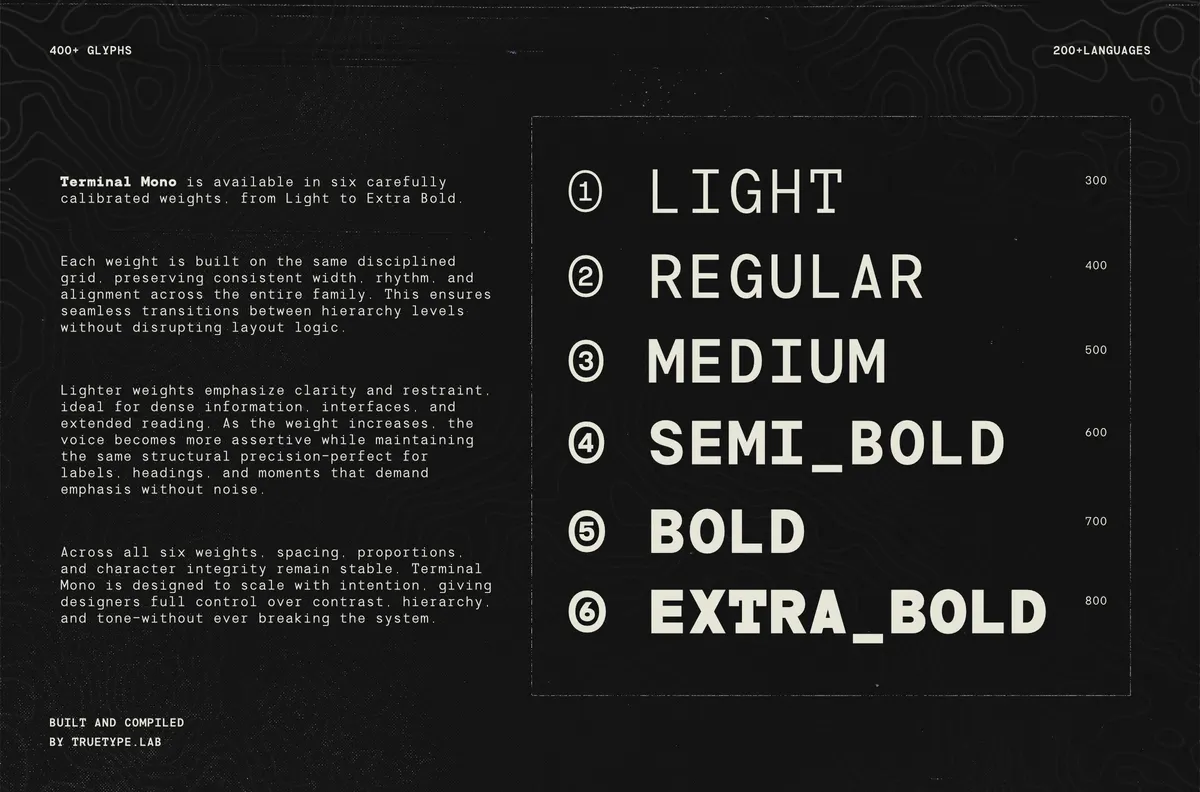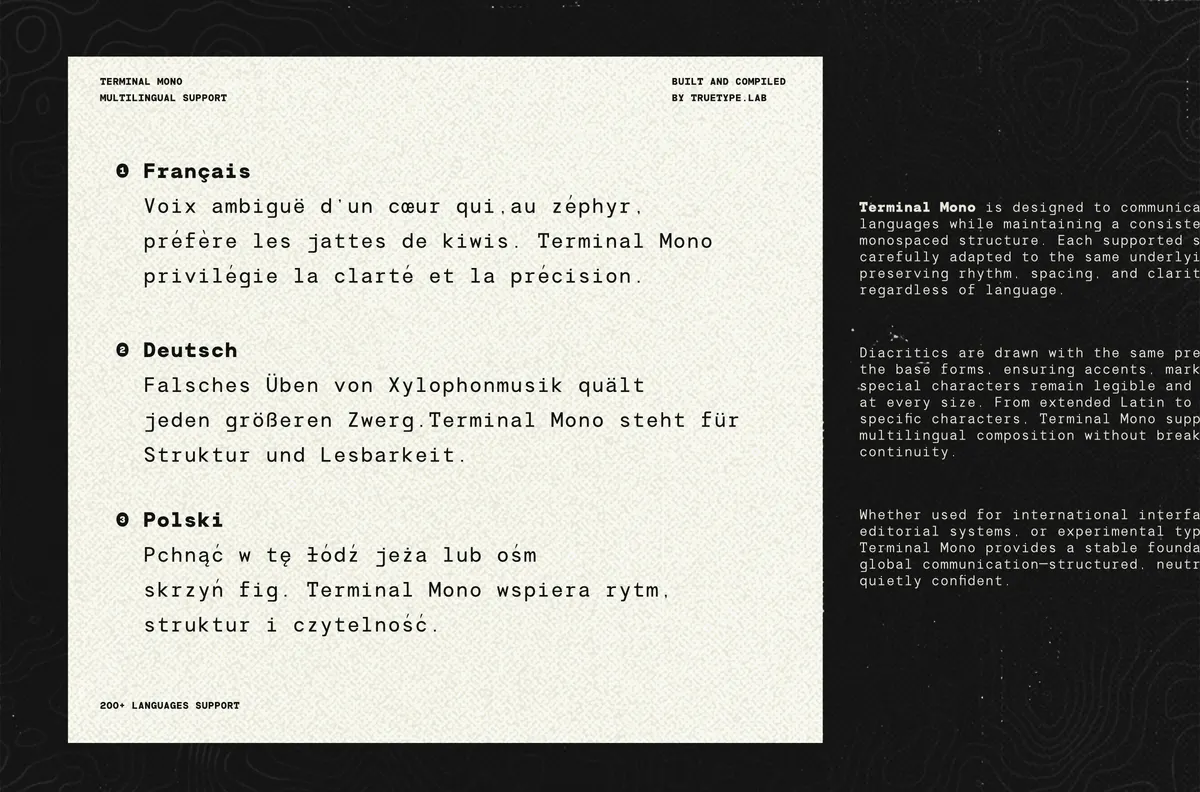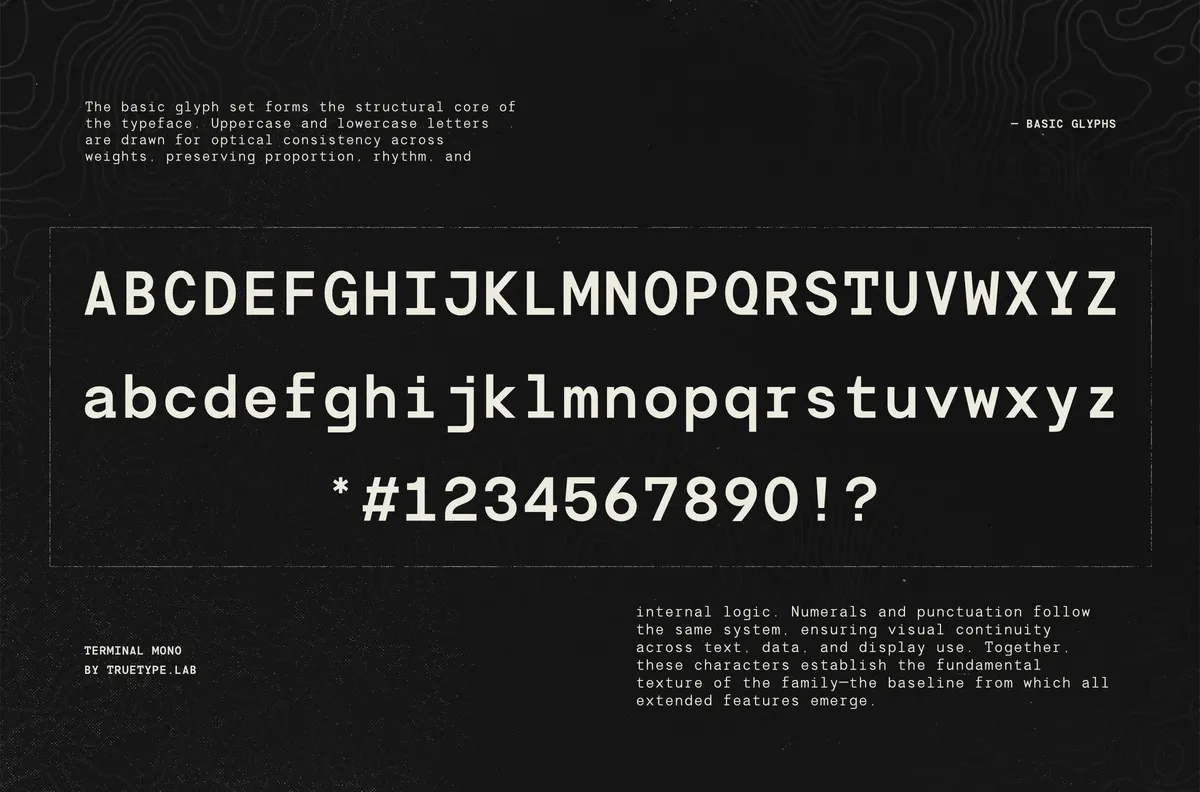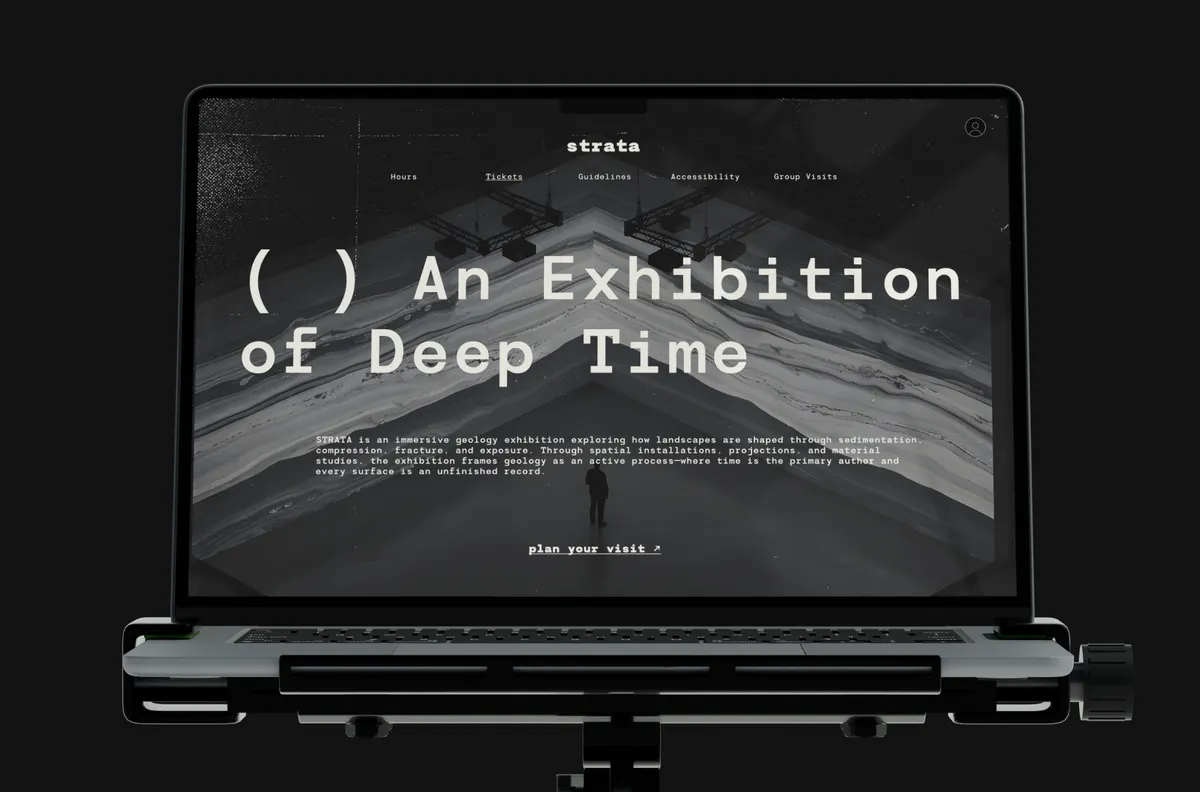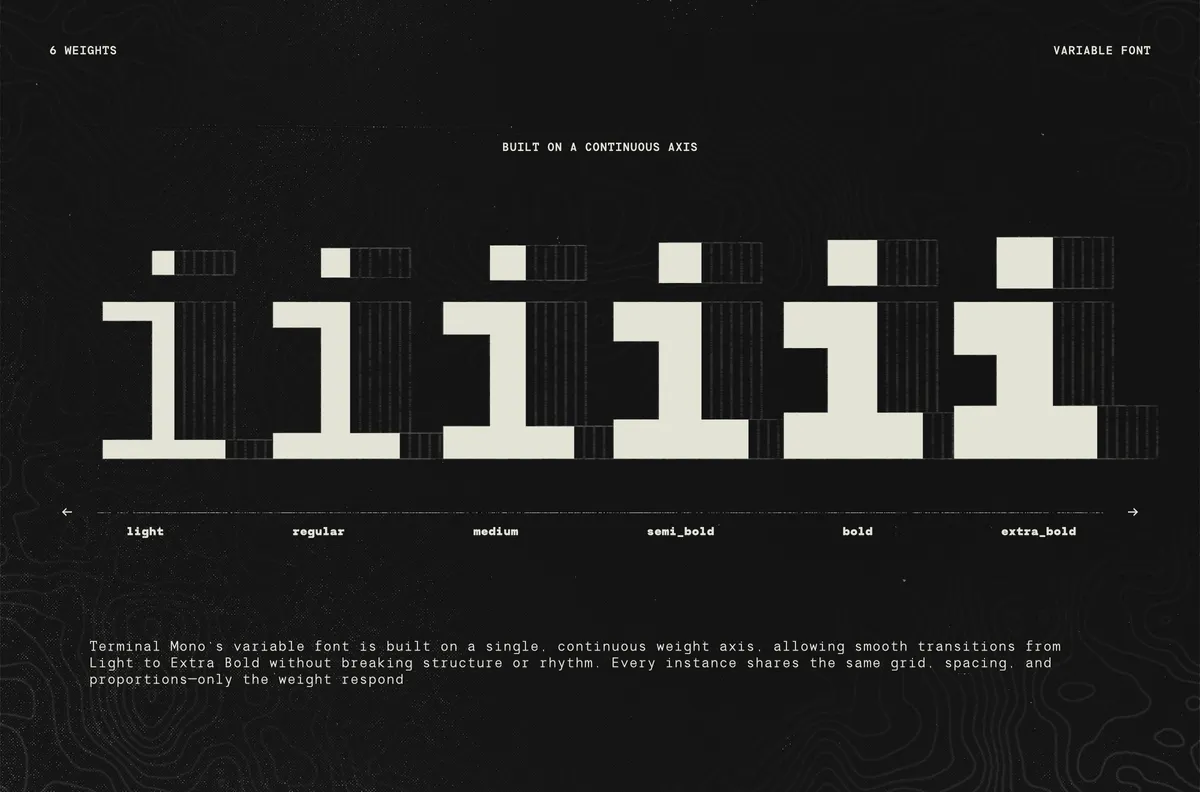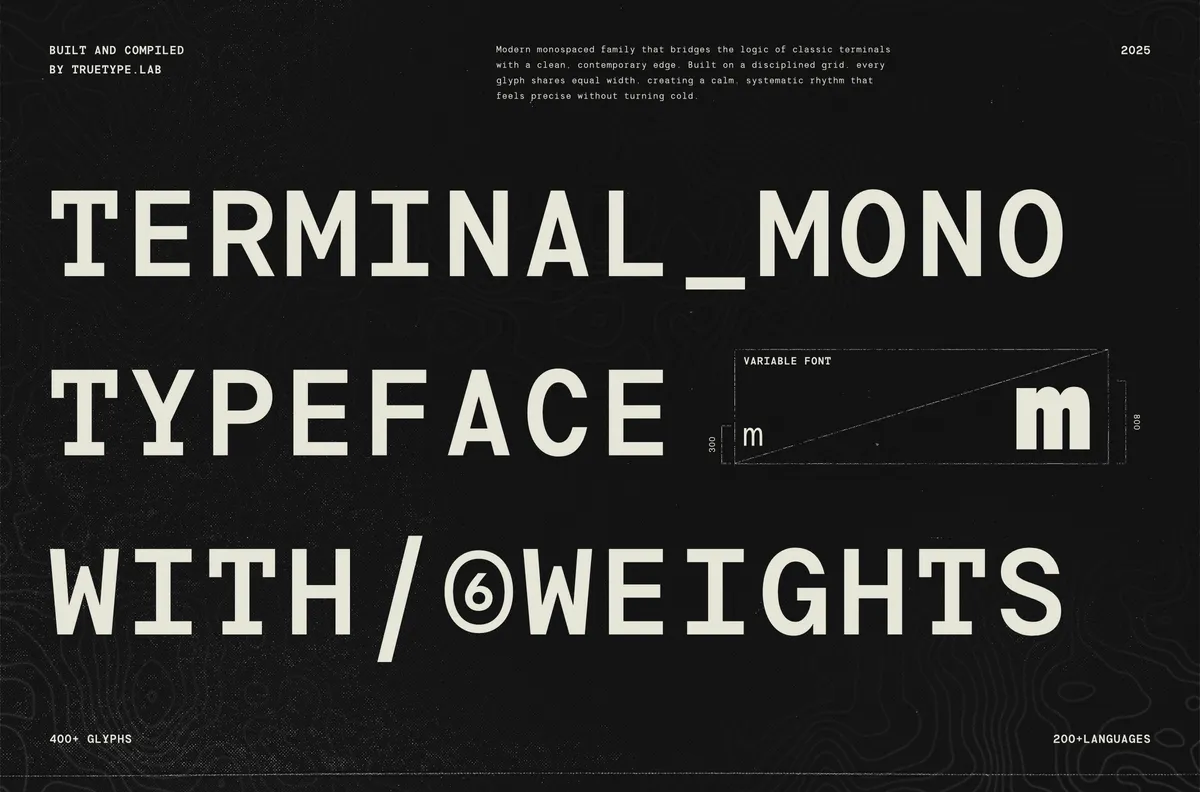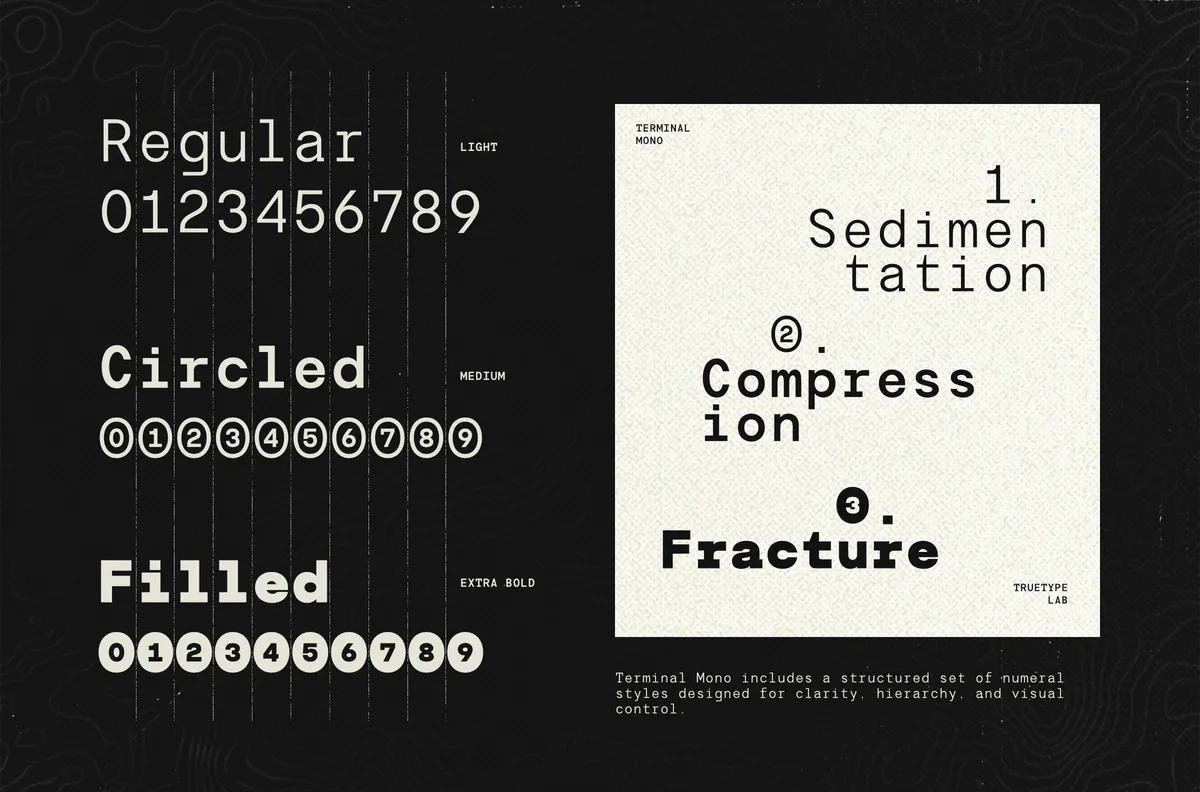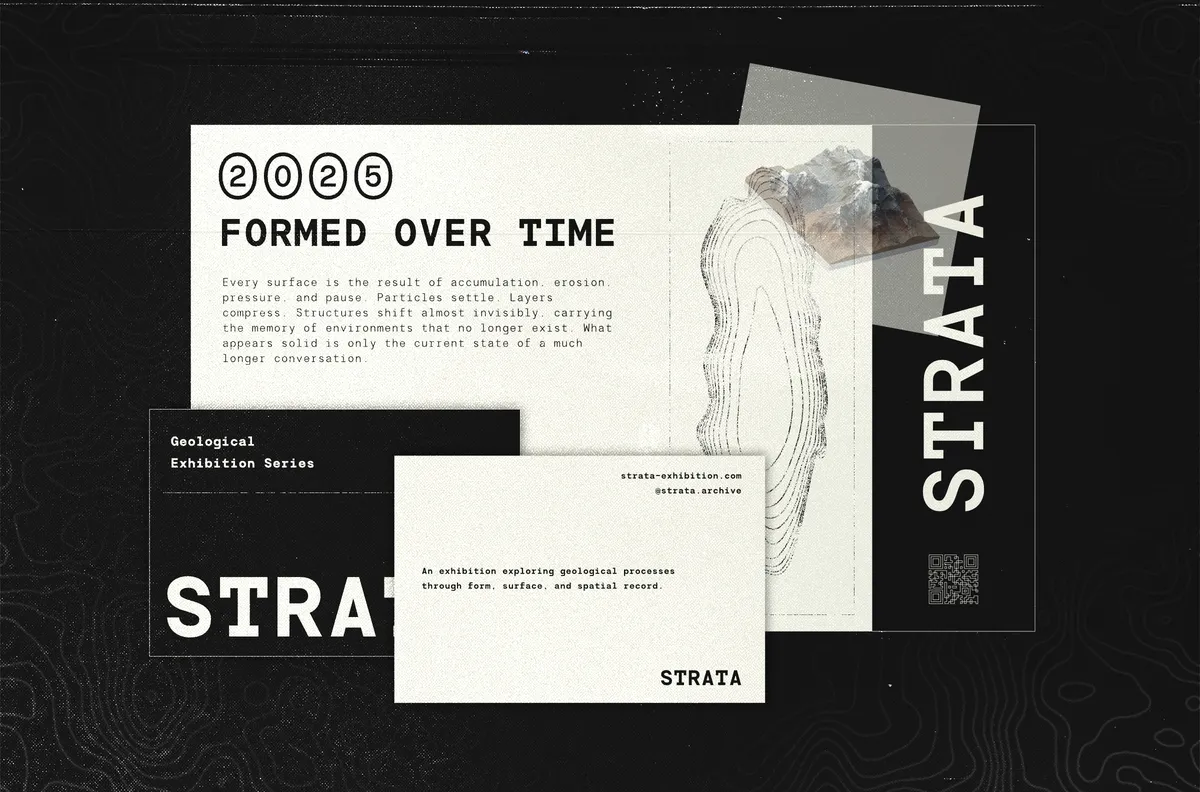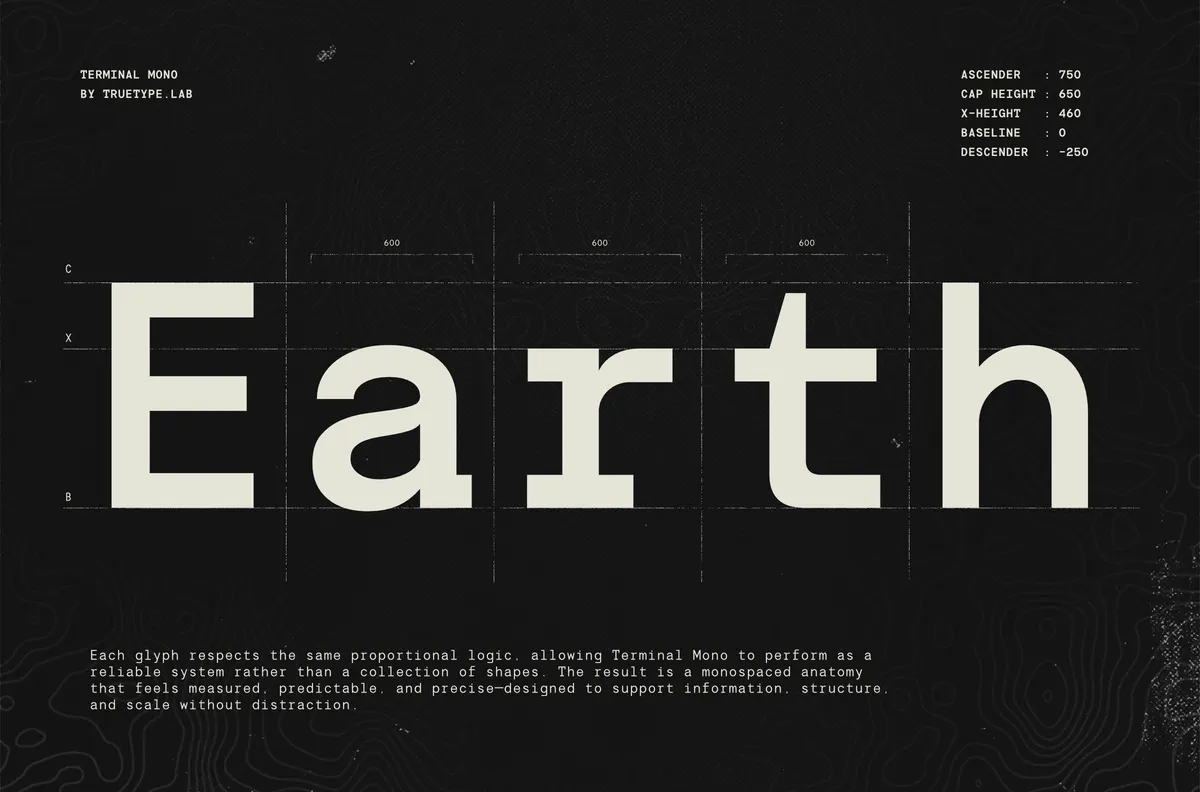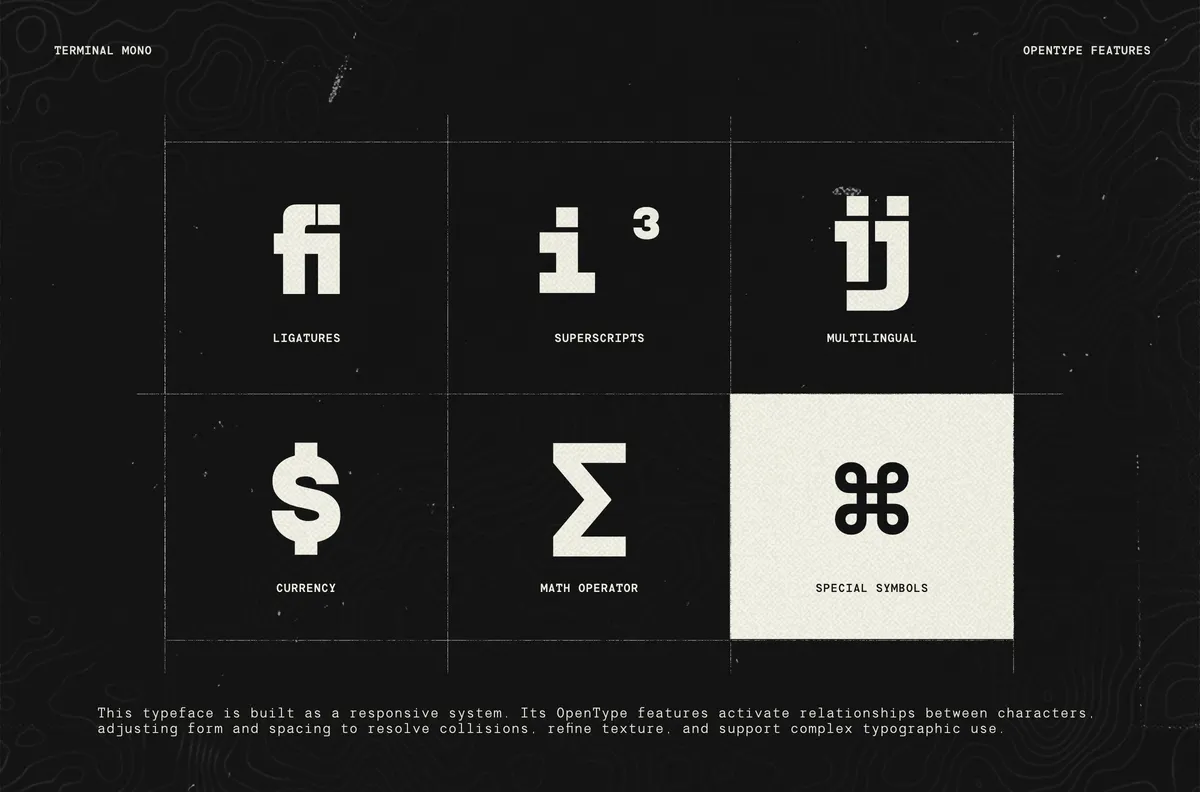
TRT Terminal Mono - Monospace Font
Terminal Mono locks every character to the same width, building a true monospaced grid instead of just borrowing the look of one. Six weights move from Light through Extra Bold, and a variable font covers the same 300–800 range in a single file. Proportions are calibrated across every weight, so alignment and spacing hold steady whether the text sits light or heavy.
Three numeral styles ride along in the glyph set: regular figures, circled numerals, and filled circled numerals, alongside superscript figures and fraction glyphs. Use it for UI type, data tables, technical documentation, editorial captions, and display headlines that want a grid-built, terminal-inspired voice.
- 6 weights: Light, Regular, Medium, SemiBold, Bold, ExtraBold;
- variable font covering the full 300–800 weight range;
- uppercase & lowercase;
- numerals, punctuation & symbols;
- circled and filled circled numeral styles, superscript figures, fractions;
- multilingual support.